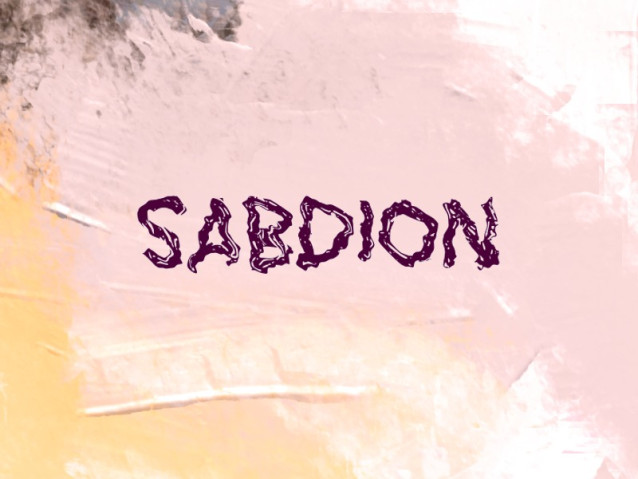
Sabdion Font
Sabdion Font is a unique, experimental display font designed by Wep. It breaks all the traditional rules of typography to create a visual experience that is both raw and captivating.